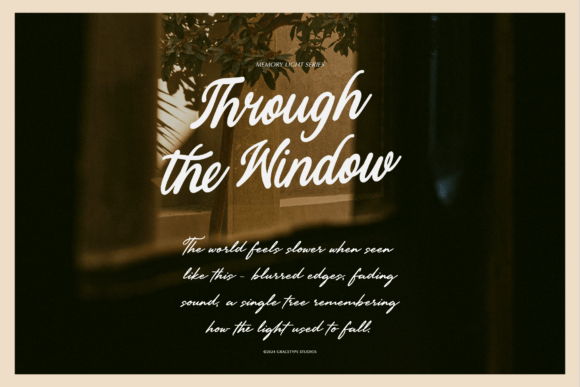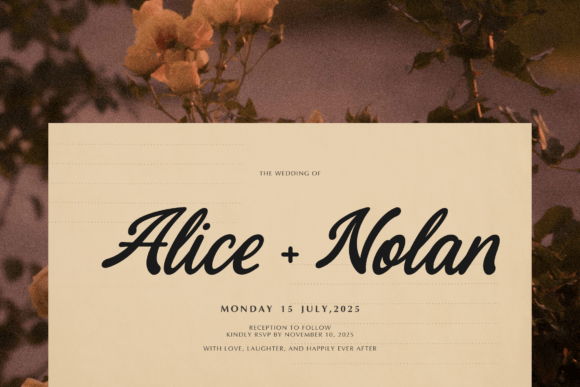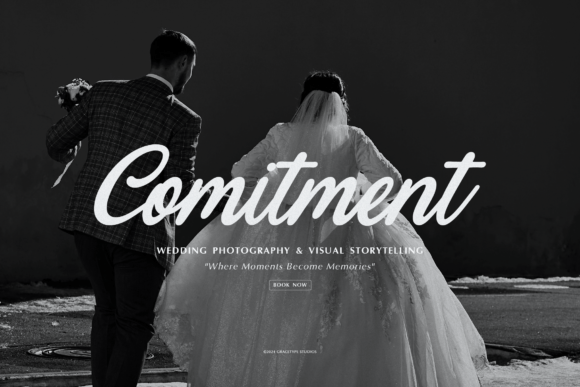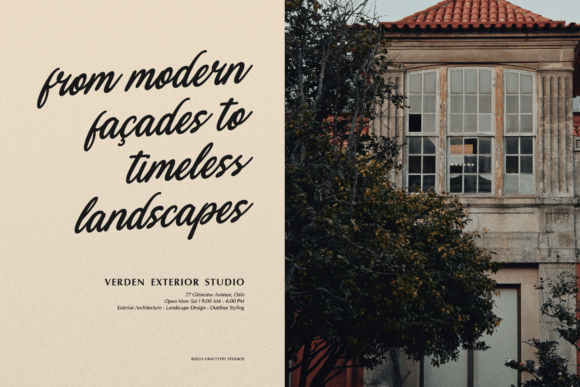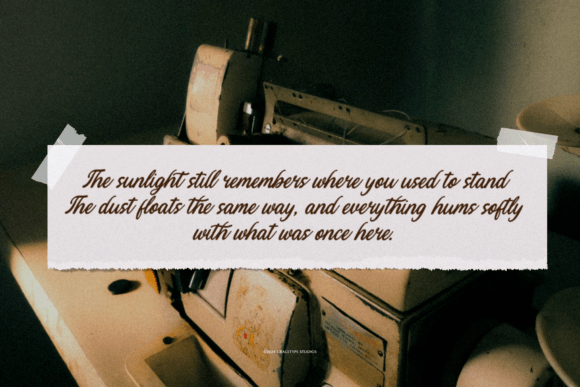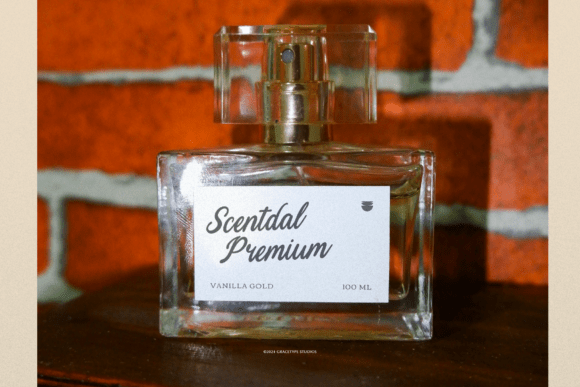
Introduction to Lerafina Rumored Font
Lerafina Rumored is a comfortable, casual handwritten font that carries the nostalgic warmth of a classic, fluid typewriter script.
This font is a smooth, slightly retro handwritten script with a relaxed, natural flow It features generous spacing and rounded, even strokes, giving it a friendly and highly readable appearance.